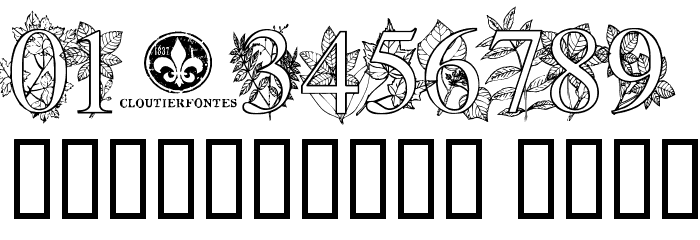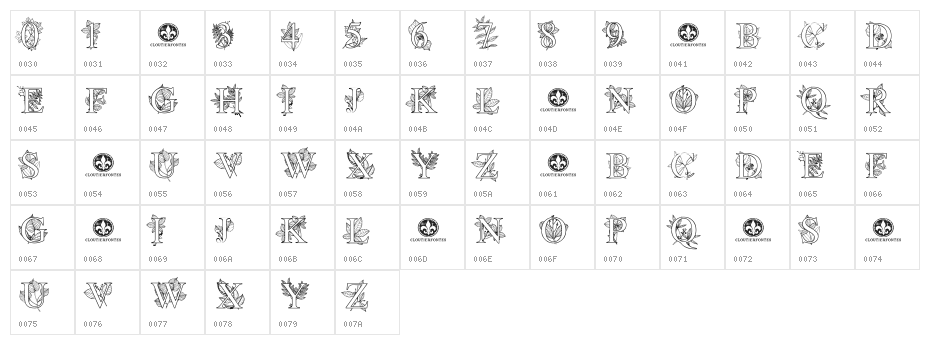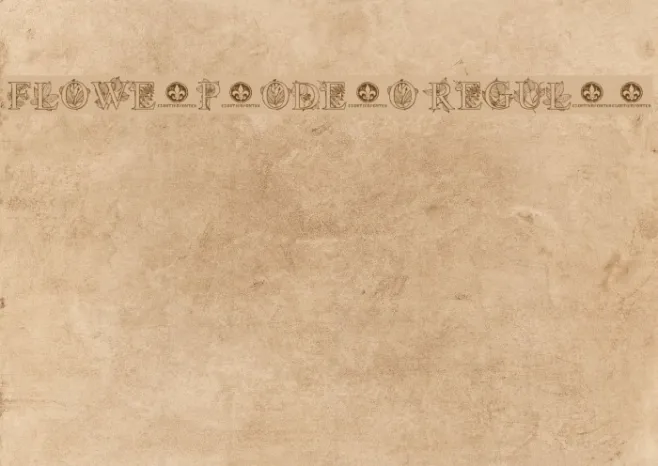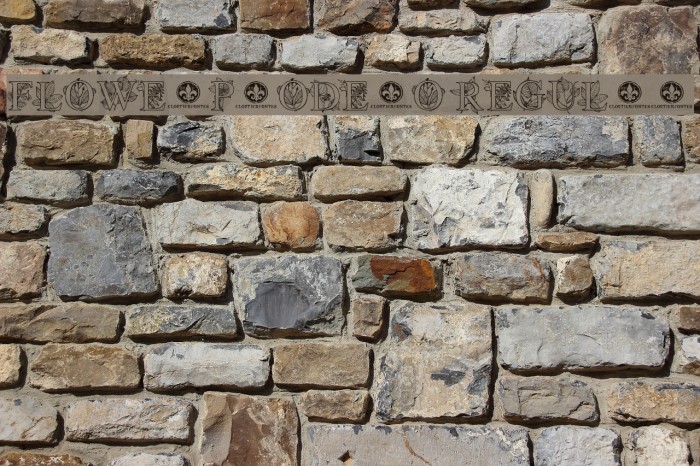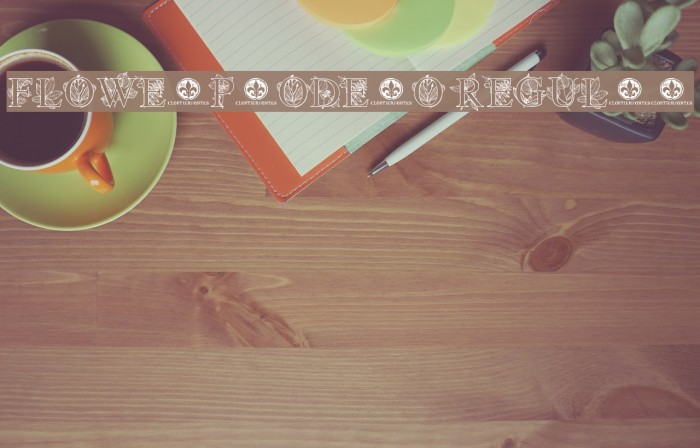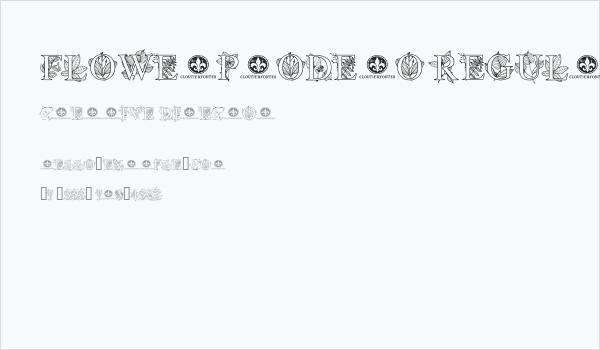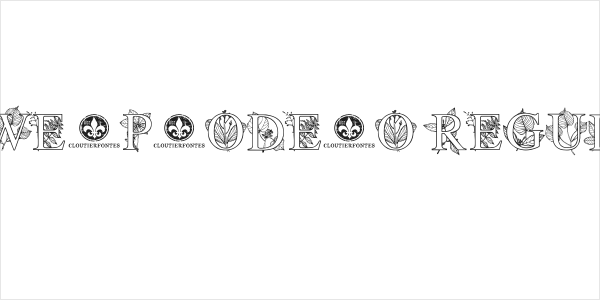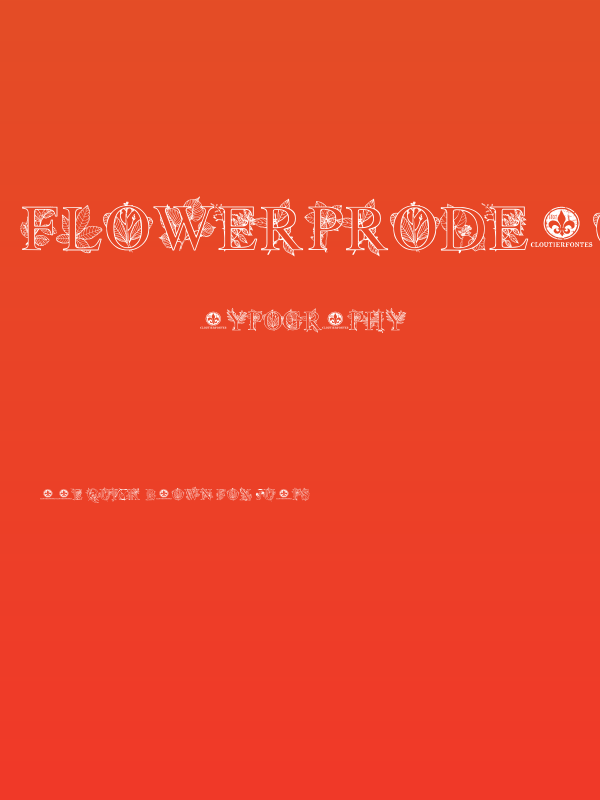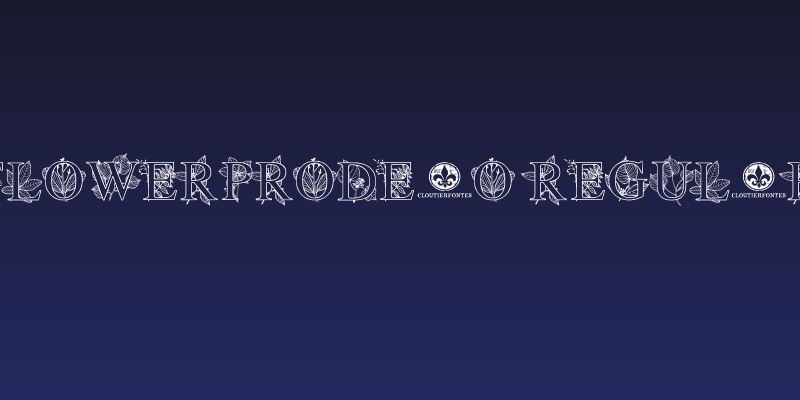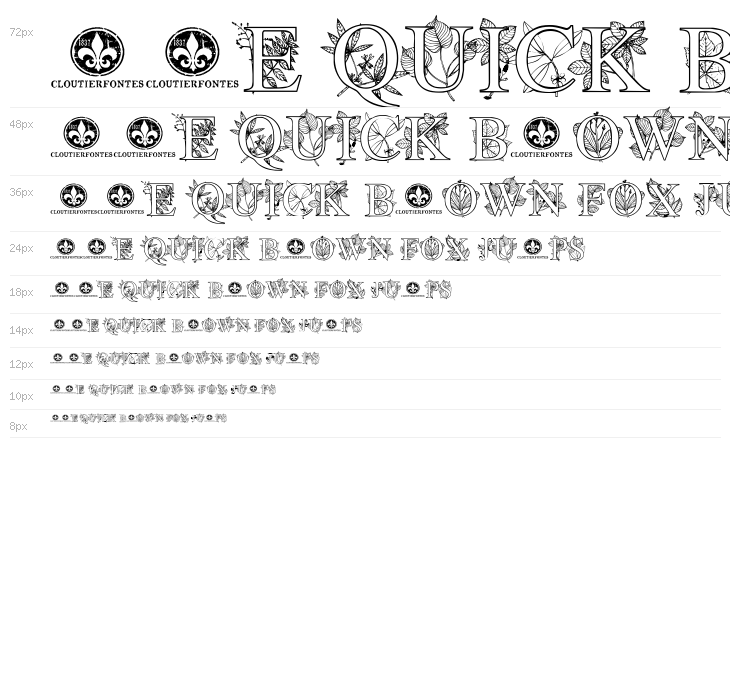
FlowerProDemo Regular Font
FlowerProDemo Regular Description
This font is a decorative display typeface that features intricate floral designs integrated into each character. The letters are embellished with detailed vine and leaf motifs, giving them an ornate and artistic appearance. The uppercase and lowercase letters maintain a consistent style, with each character uniquely adorned with botanical elements. The numbers and special characters also follow this decorative theme, ensuring a cohesive look across all glyphs. The overall design is highly stylized, making it suitable for projects that require a touch of elegance and nature-inspired aesthetics.
| Proposed Projects | Ideal for wedding invitations, greeting cards, botanical-themed branding, and decorative posters. |